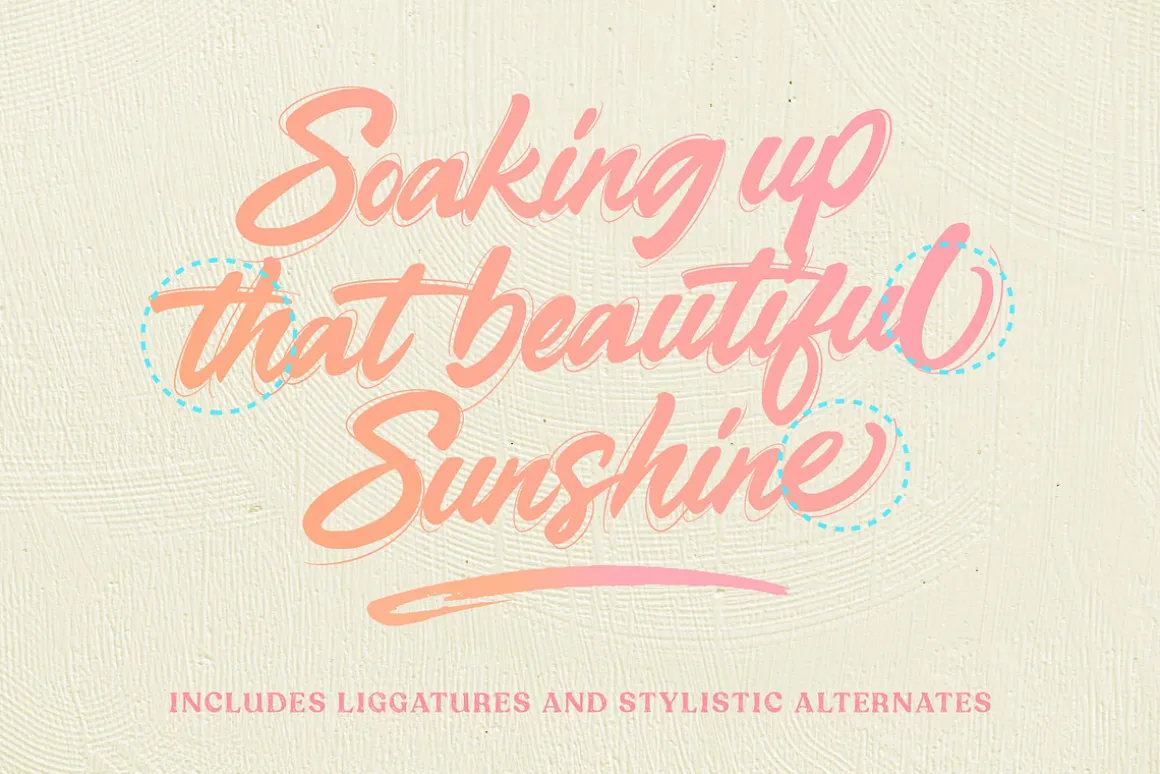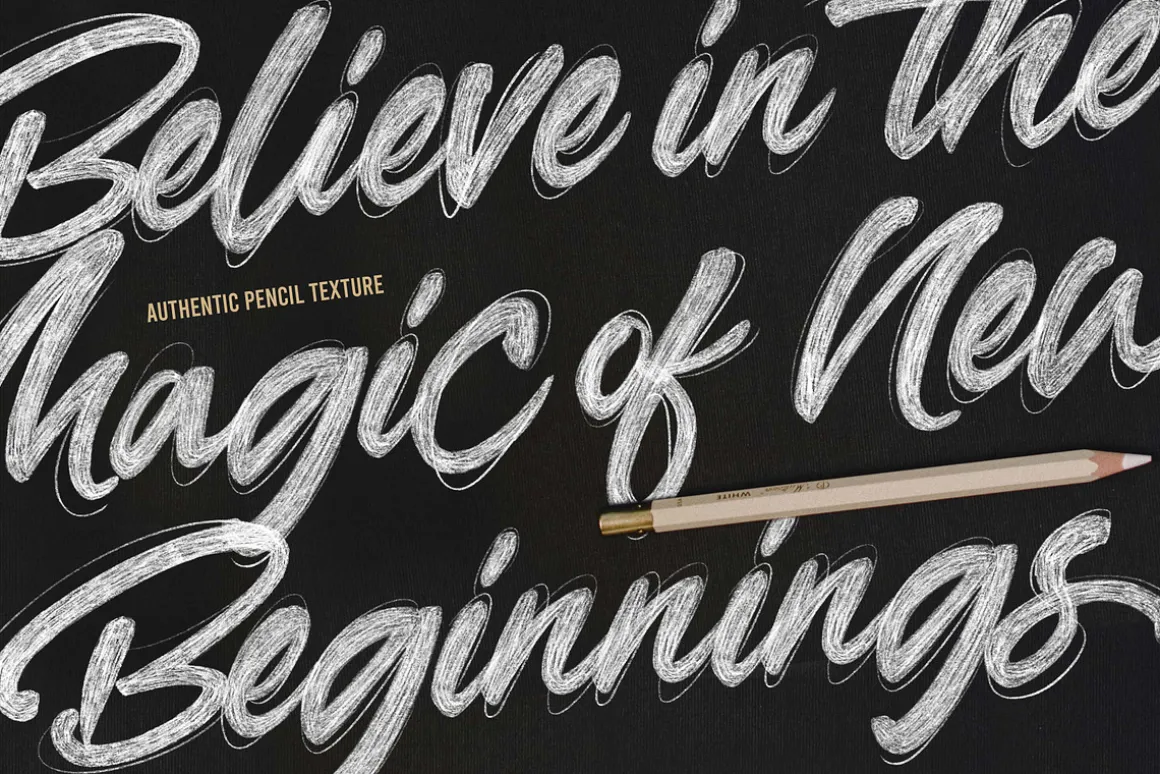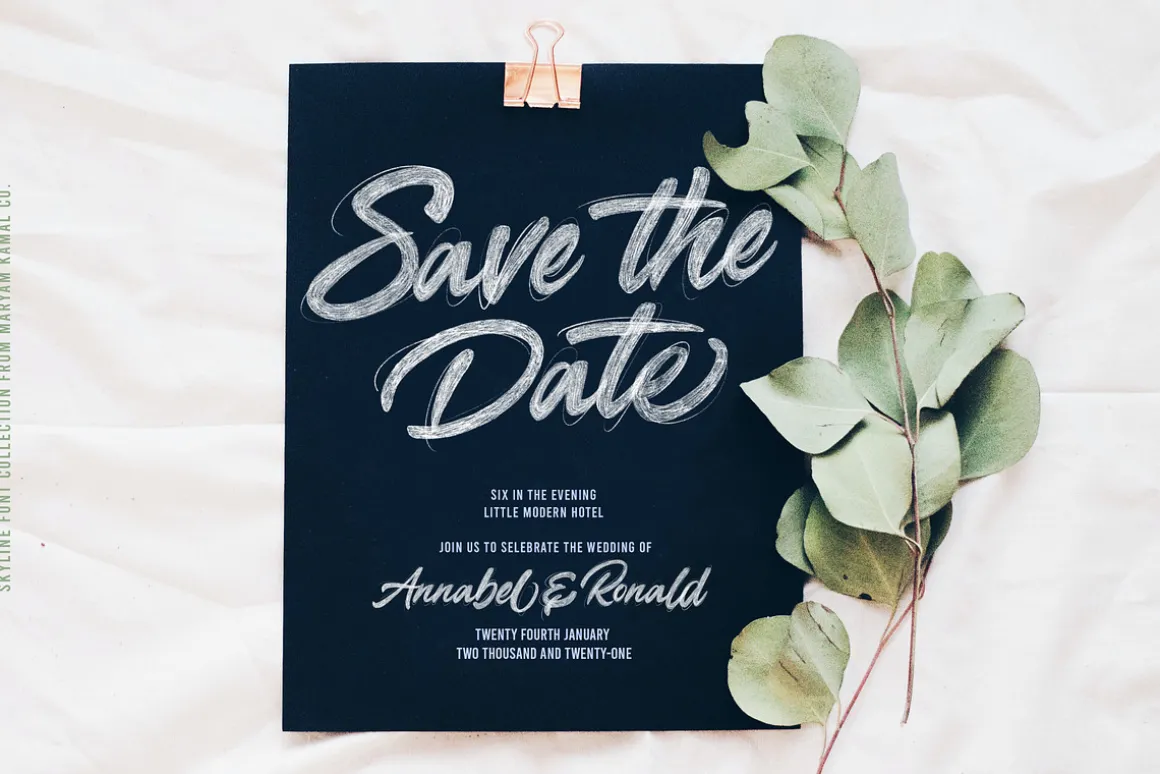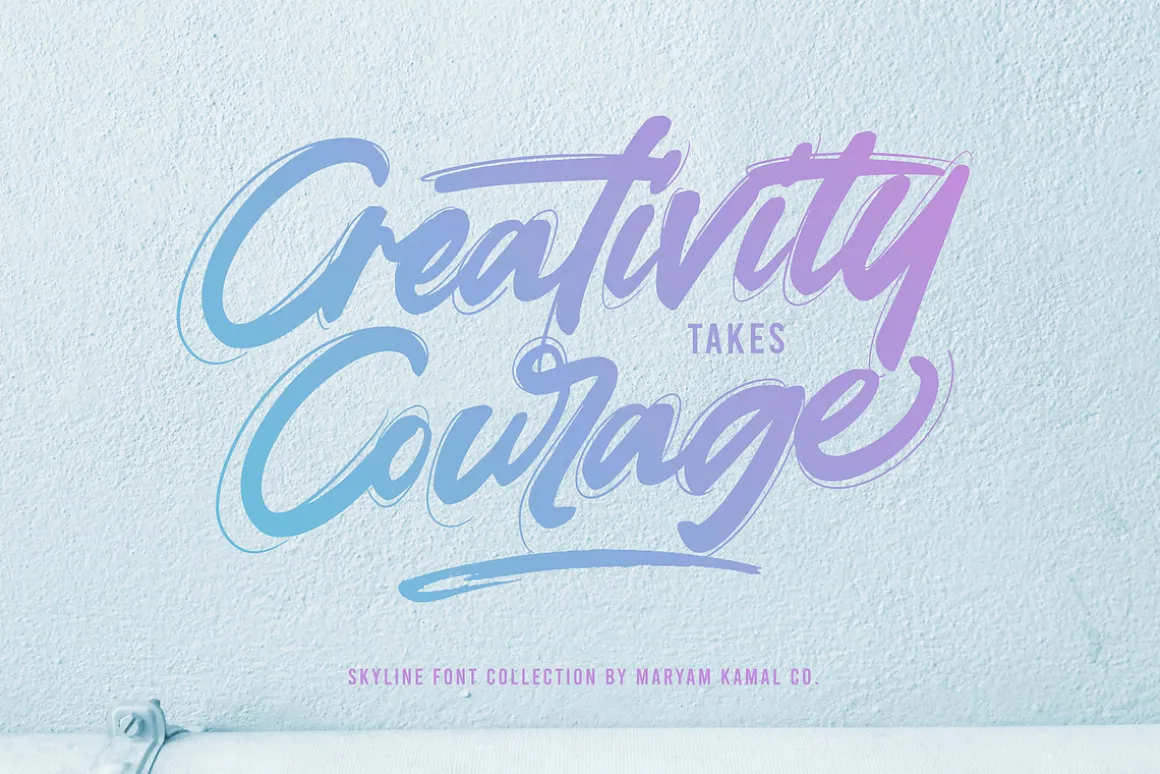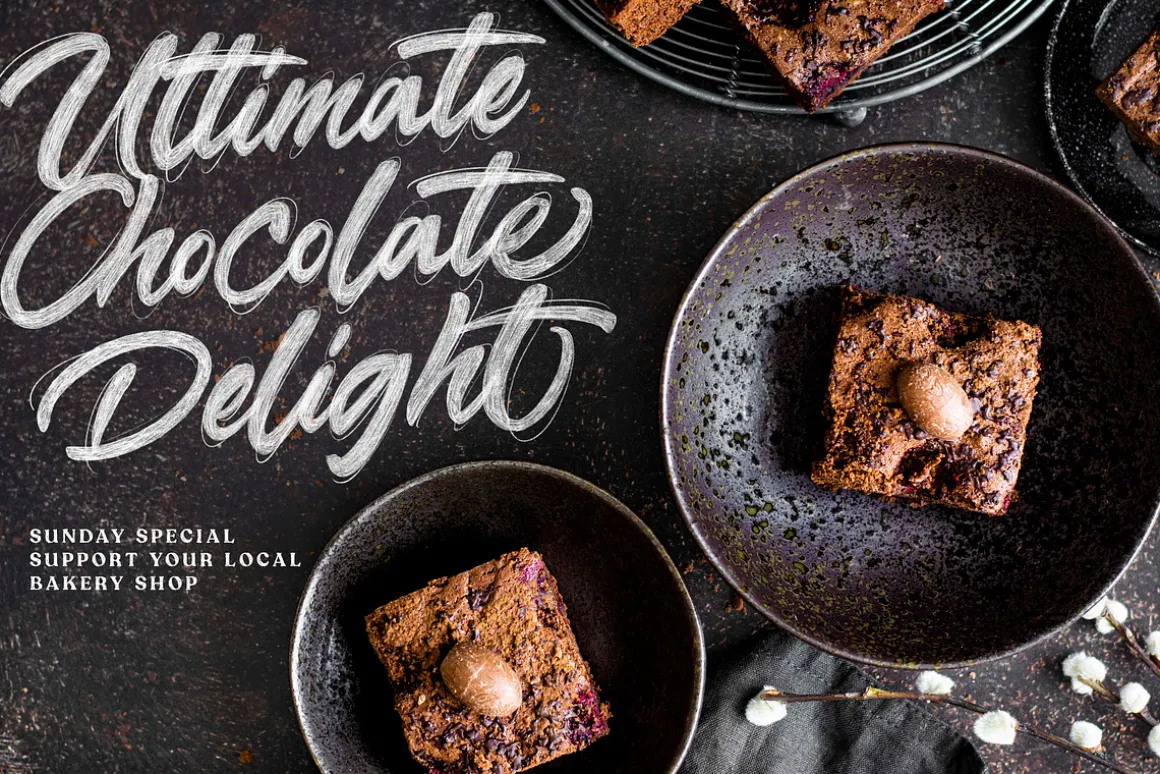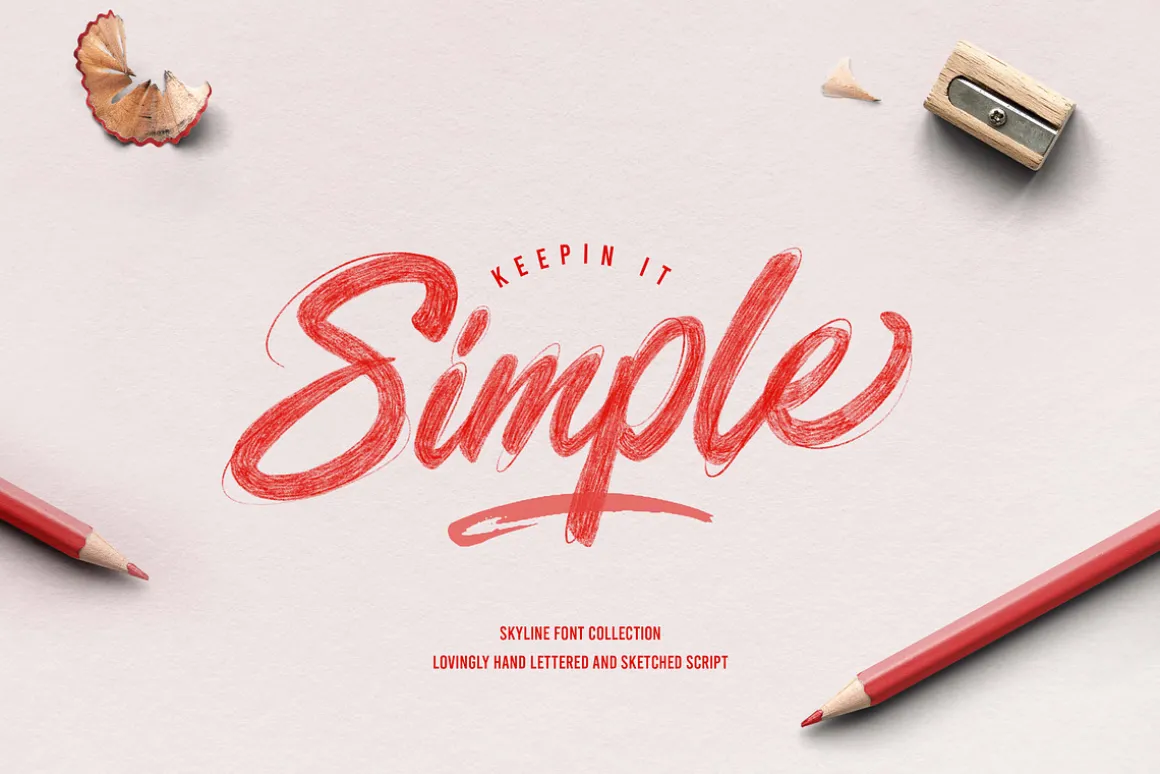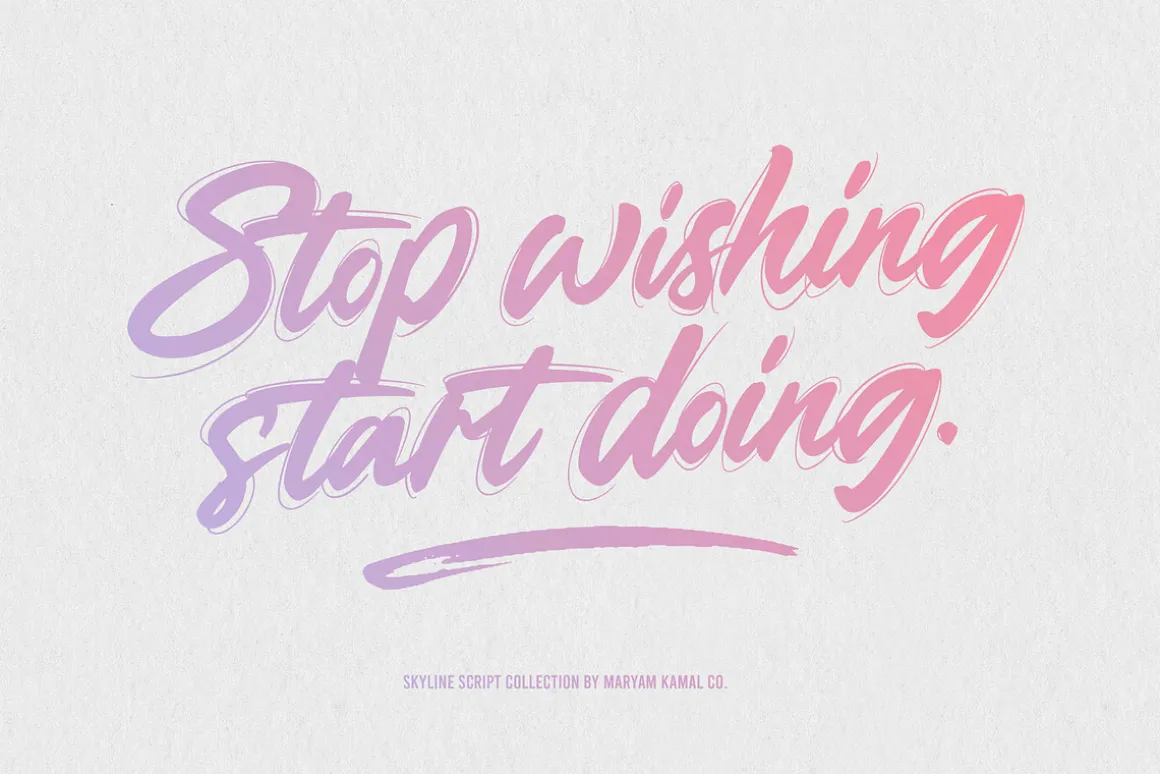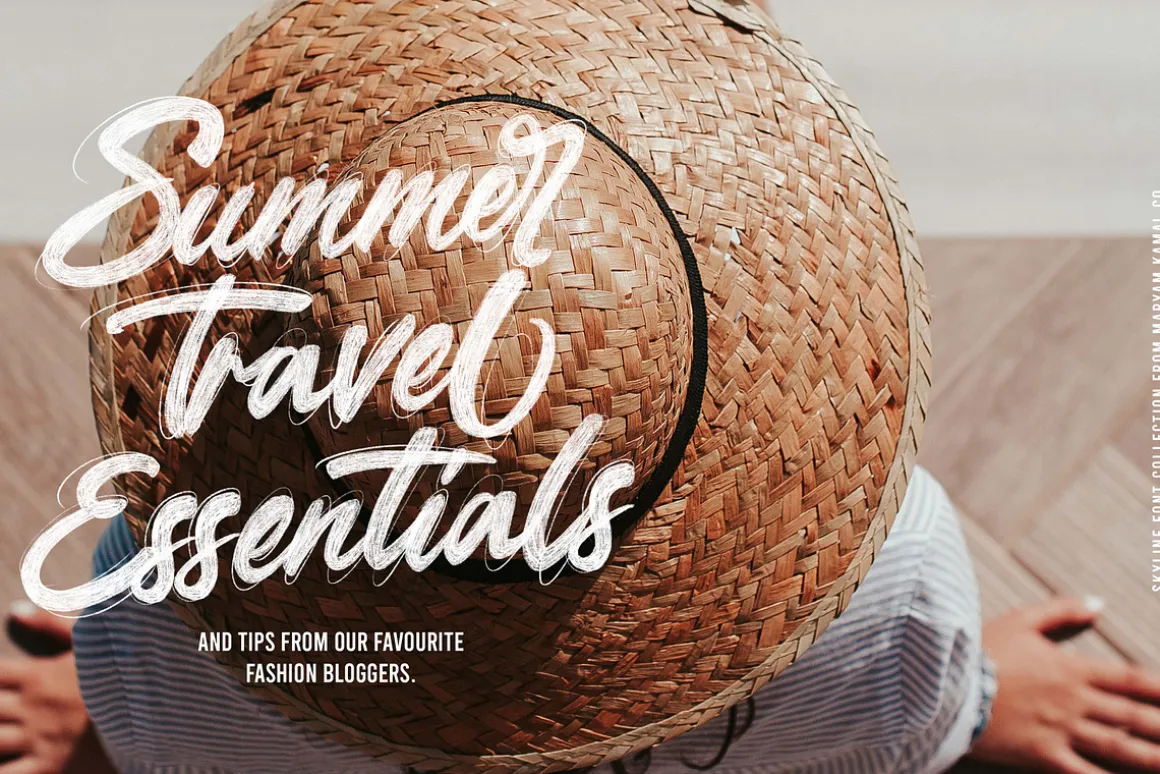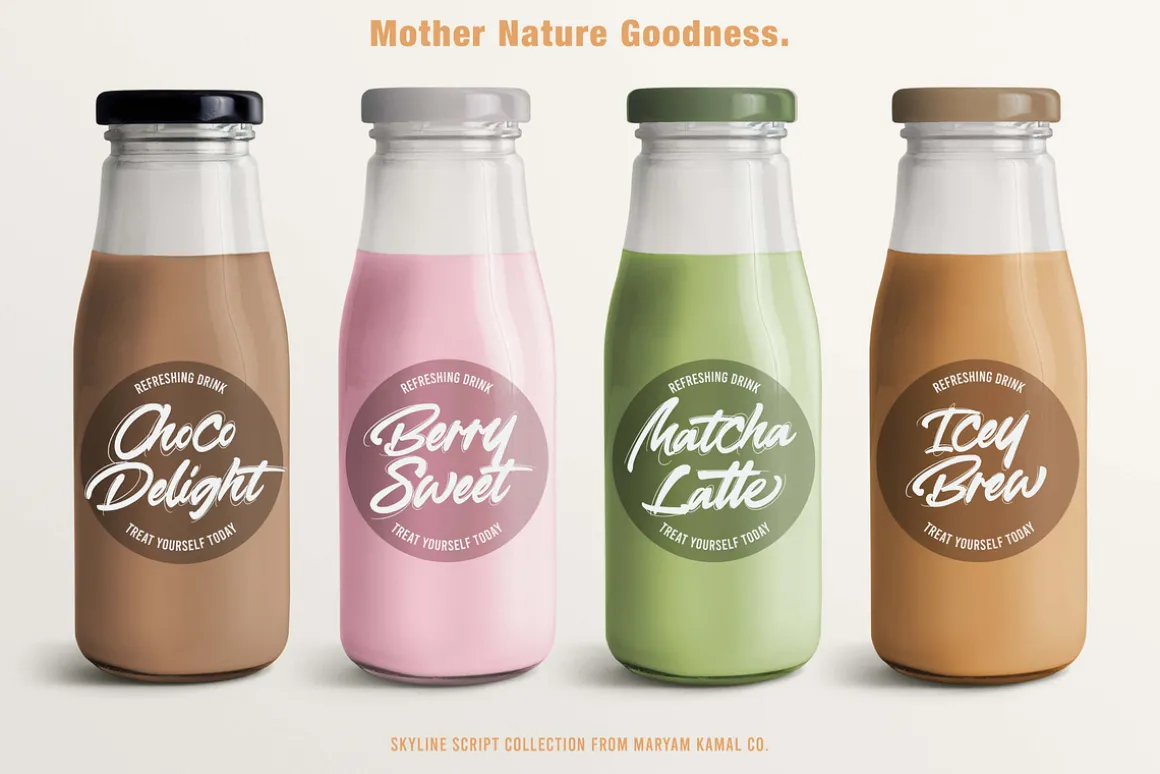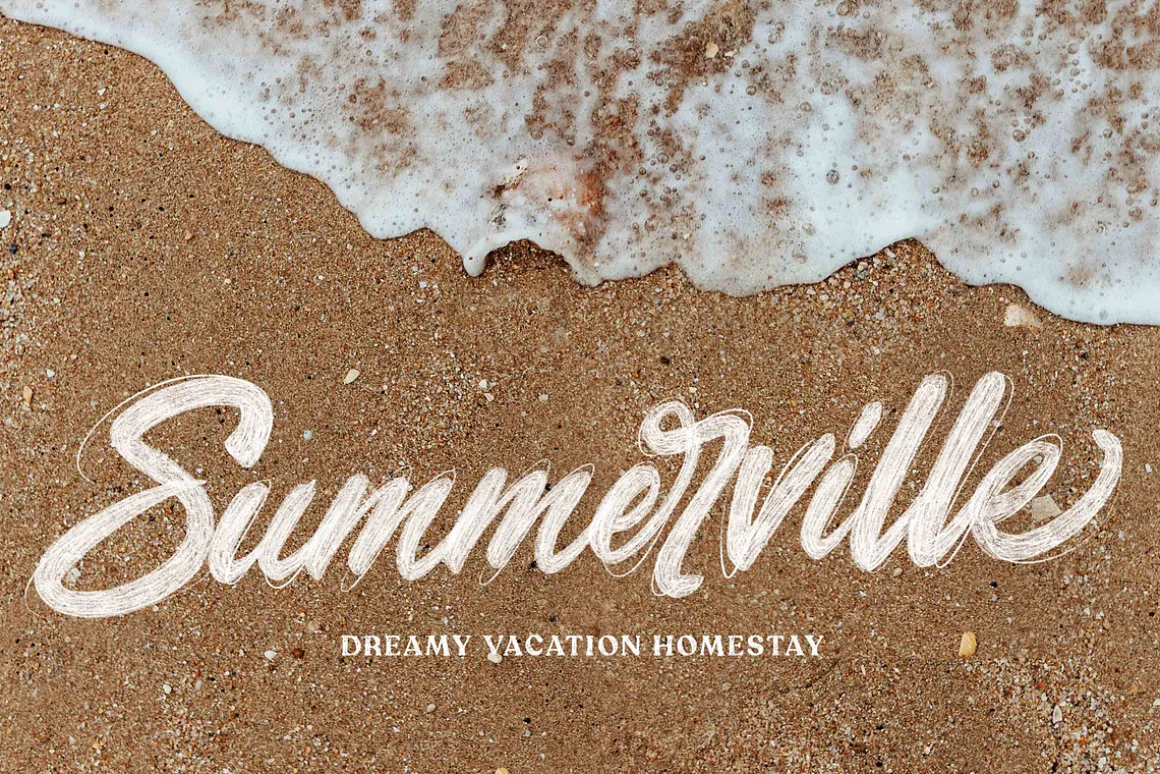
Introducing the all-new Skyline Script Font Collection!A Modern hand lettered bold script inspired by Instagram lettering trends is here to help you make a statement!
Every character was hand-sketched individually to give each letter a unique pencil texture. Use the included flare version to add more character to your design and give it an extra oomph creating an eye-catching hand-drawn look.
Perfect for creating eye-catching branding and headlines for handmade, food & beverage and artisan goods. Create quotes, invites, t-shirts, Logos, or use it to spice up your instagram feed!